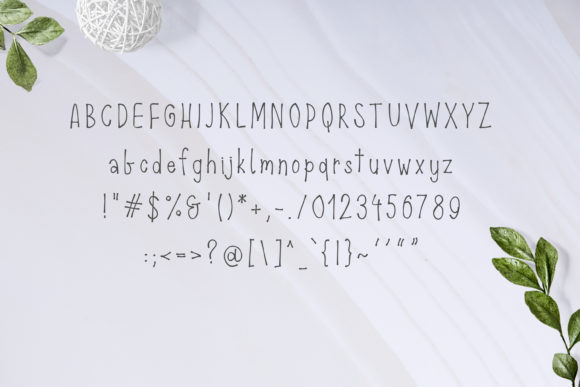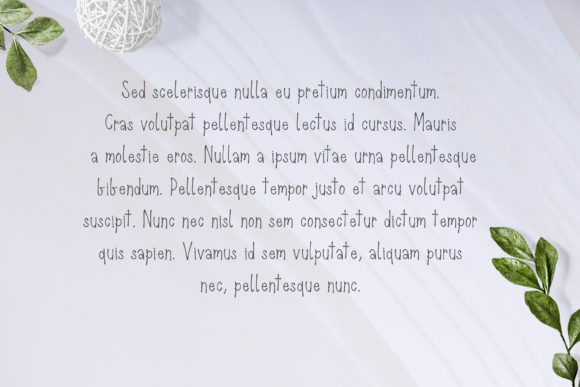
Spoko Maroko Font
About Spoko Maroko Font
Spoko Maroko is a simple and sweet handwritten font. Its natural and unique style makes it incredibly fitting to a large pool of designs. The only limit is your imagination!